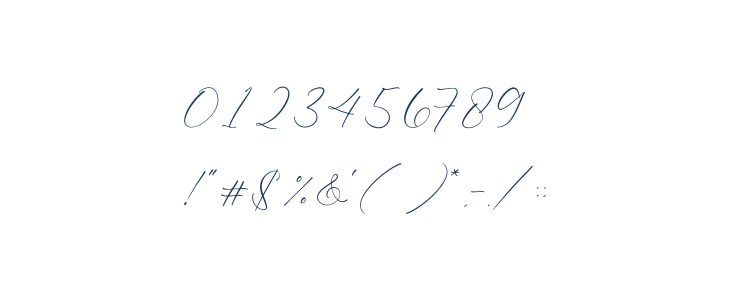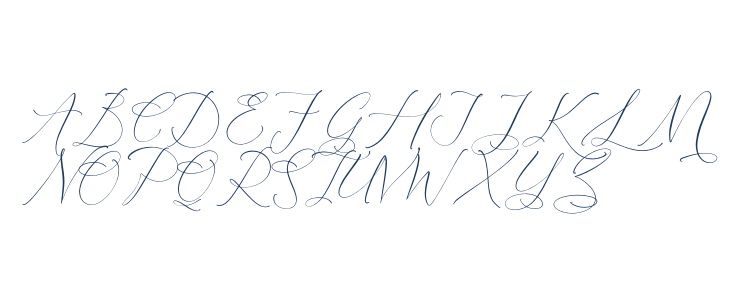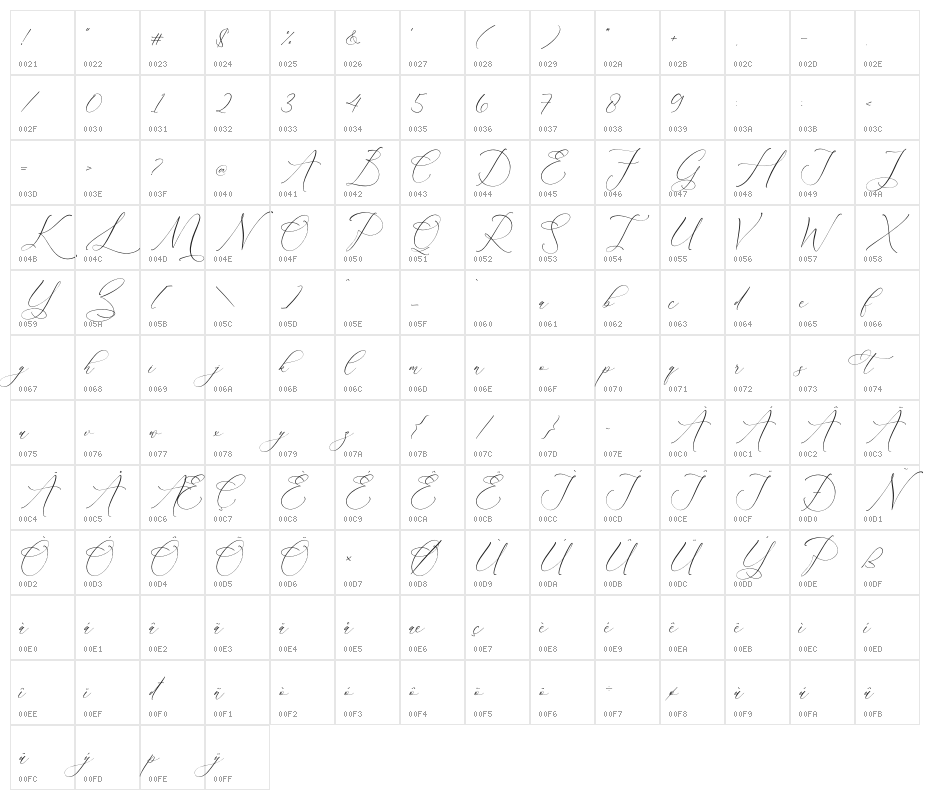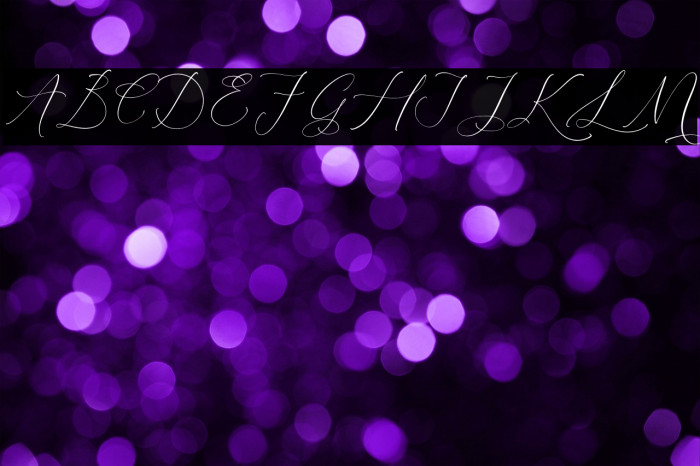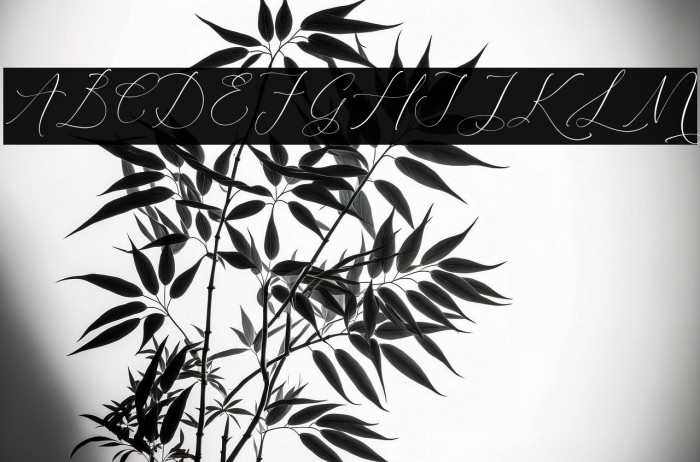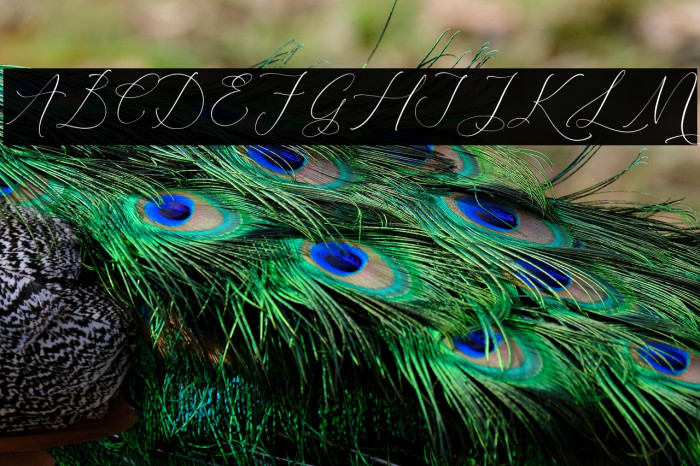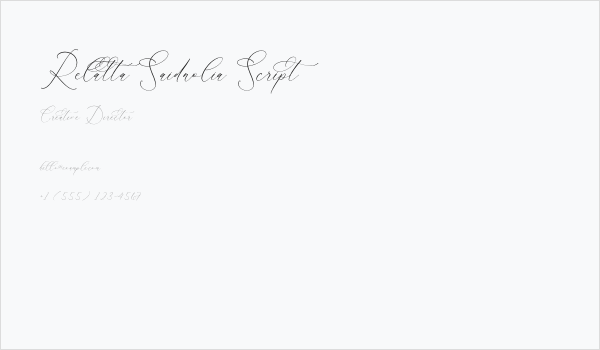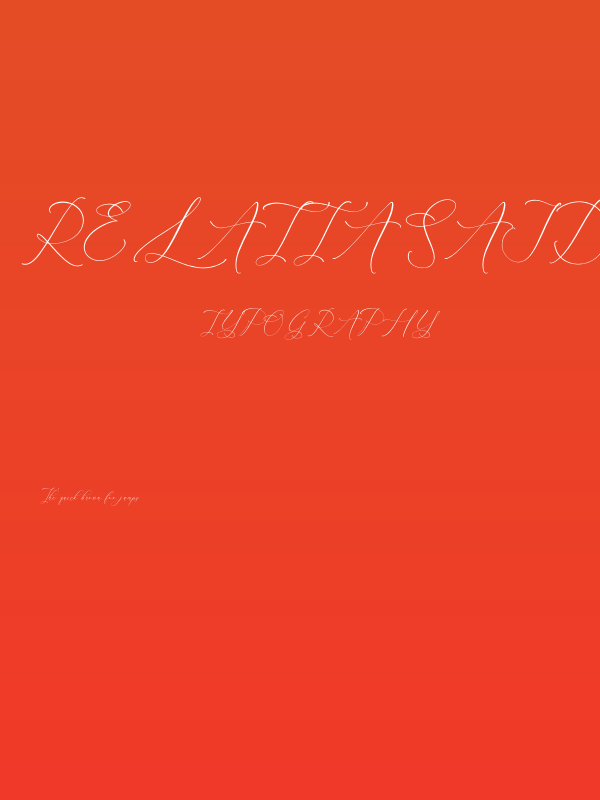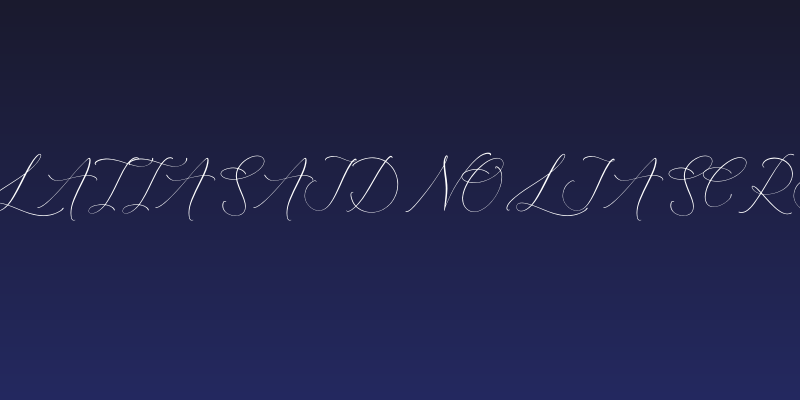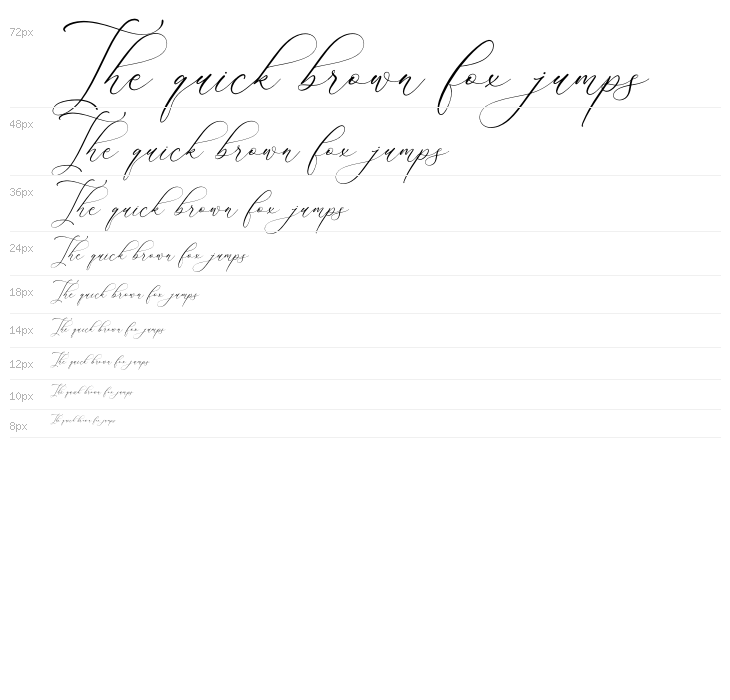
Relatta Saidnolia Script Font
Relatta Saidnolia Script Description
Elegant, flowing script font with high contrast and elaborate swashes, featuring thin strokes and ornate, calligraphic letterforms. The characters are connected in a cursive style, with pronounced ascenders and descenders, and generous spacing between letters.
| Overall Style | Decorative, Elegant, Calligraphic |
| Use Case | Logos, Invitations, Decorative Headlines |
| Proposed Projects | Wedding invitations, luxury branding, certificates, elegant event signage, greeting cards. |